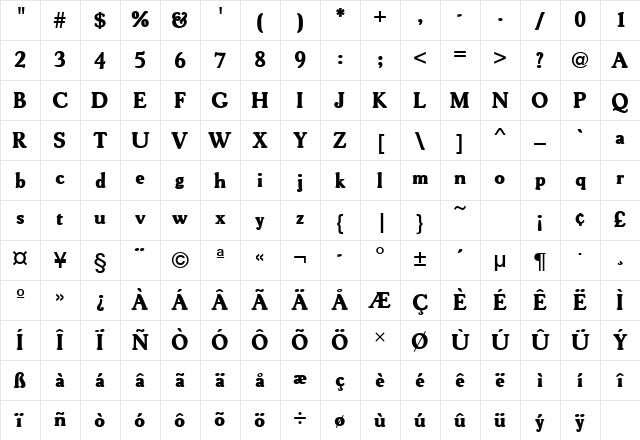
CooperOldStyURWTBol Regular
Design Context for CooperOldStyURWTBol
CooperOldStyURWTBol is a composed and adaptable typeface that performs quietly and consistently across a wide range of design contexts.
Pro Tip: Use CooperOldStyURWTBol in both headline and body roles to test its range before committing to a single application.